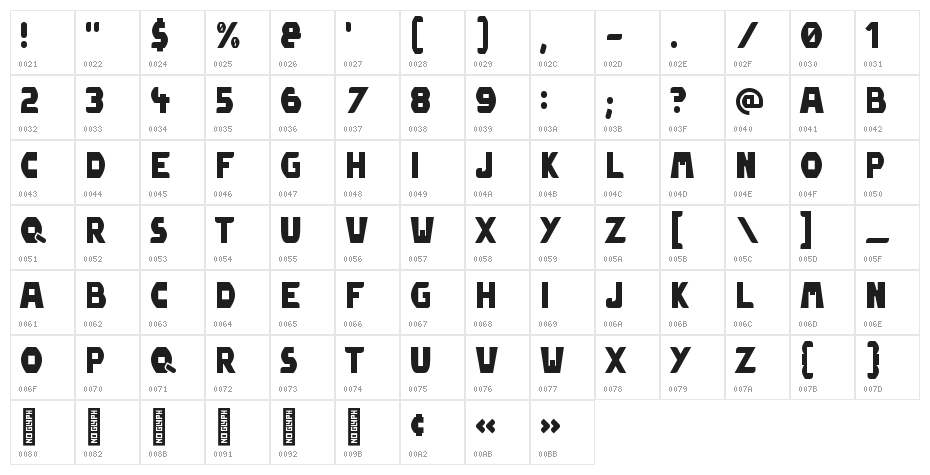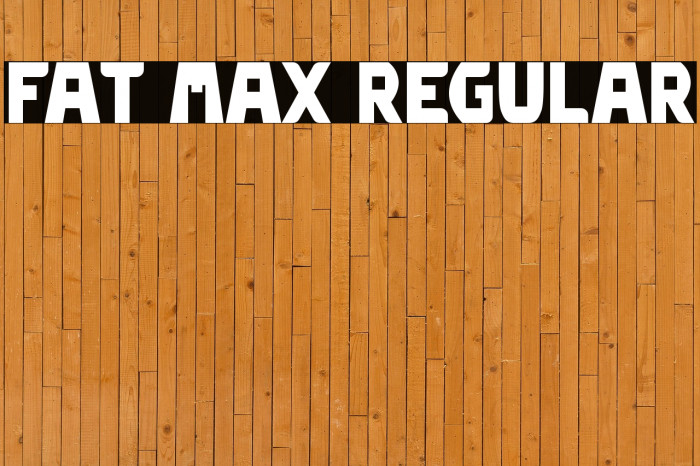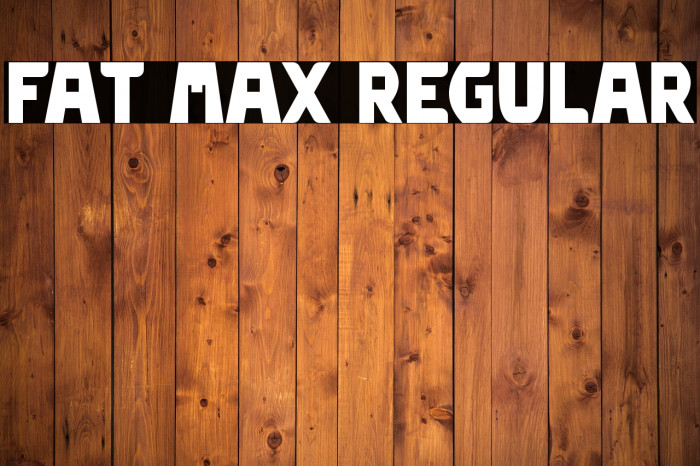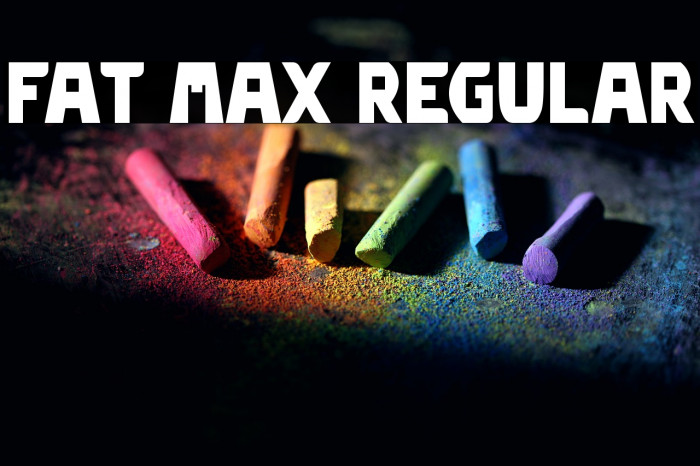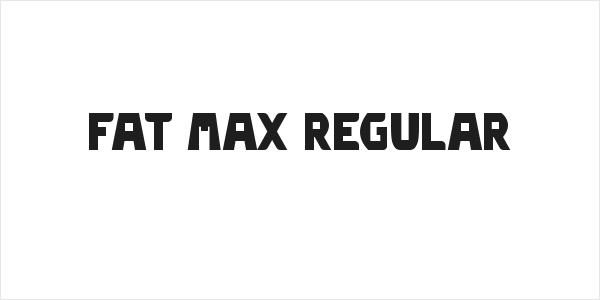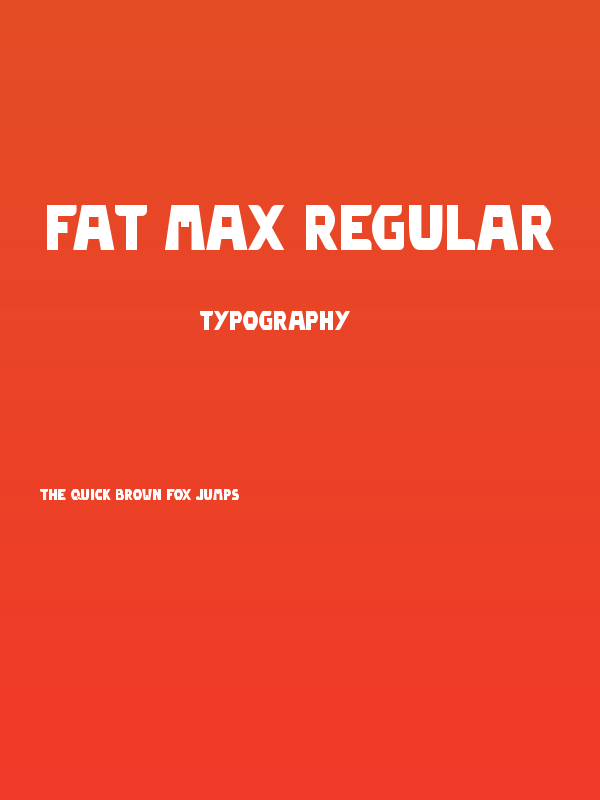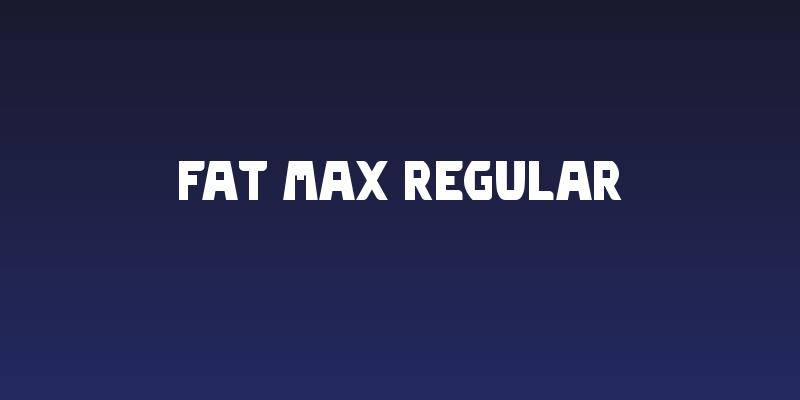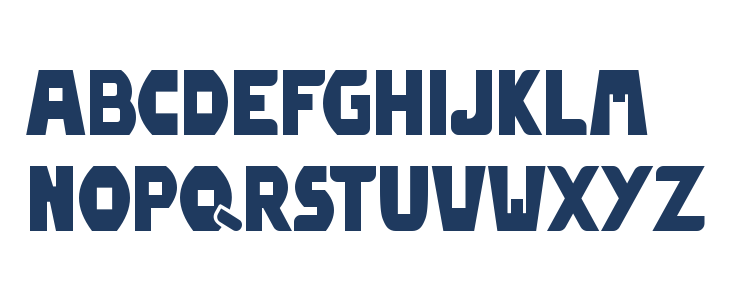
Fat Max Regular Font
Fat Max Regular Description
This font features bold, geometric letterforms with a strong, impactful presence. The characters are constructed with thick, uniform strokes, giving them a robust and solid appearance. The angular design and sharp edges contribute to a modern and industrial aesthetic. The font maintains a consistent weight throughout, ensuring a cohesive look across all characters. The numbers and special characters follow the same design principles, providing a unified style. This font is ideal for projects that require a bold statement and high visibility.
| Proposed Projects | Ideal for branding, posters, headlines, and signage where a strong, impactful presence is needed. |